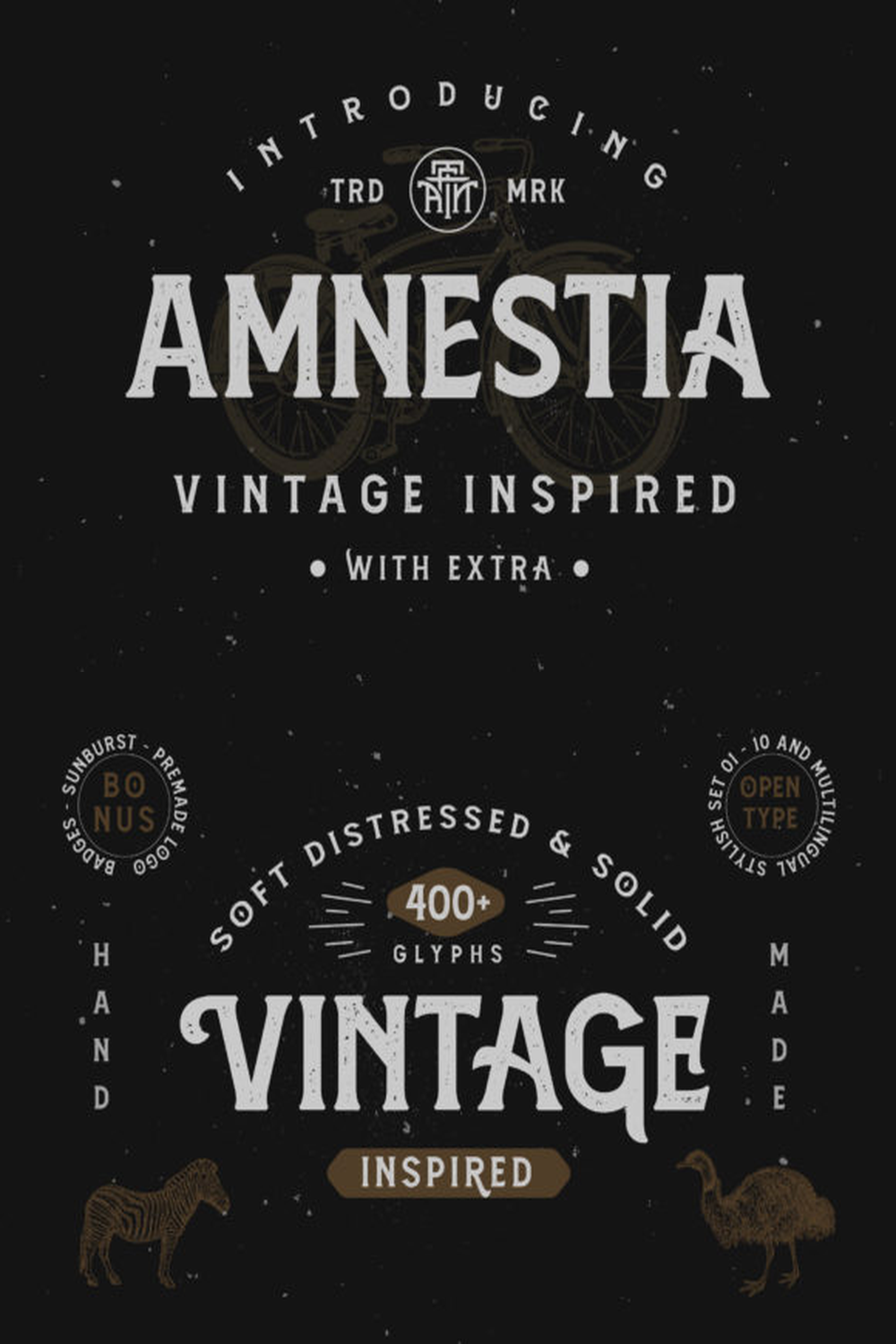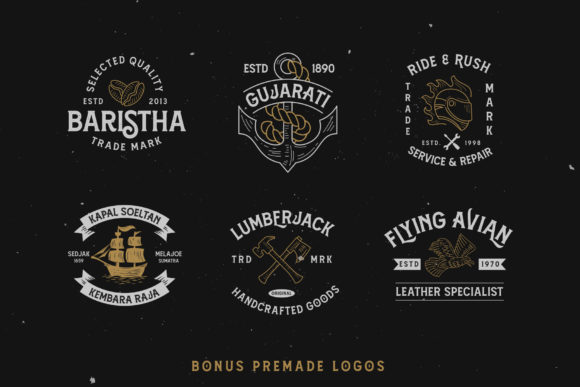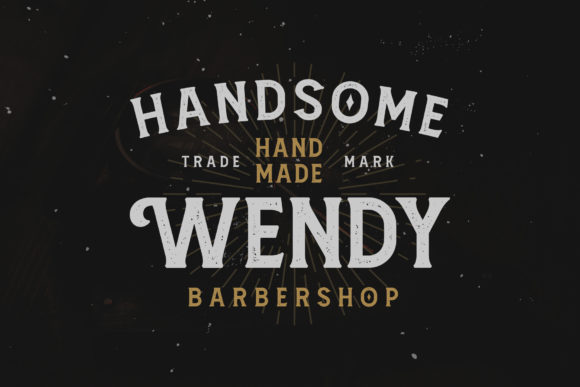
Amnestia Font: Distressed Vintage Serif for Logo Design
About the Amnestia Font
Make a bold statement with Amnestia Font, a powerful and memorable font. Amnestia is a serif font with a modern-classic feel. Get inspired by its vintage look!